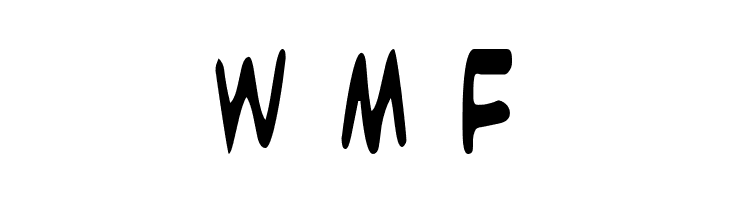
A bold, tribal-inspired font with a funky, graffiti-like style.
A bold, grungy font with a distressed, edgy design.
A lively, handwritten font with a playful and casual style.
A playful, bold font with a hand-drawn, whimsical style.
A playful, curly handwritten font with a whimsical flair.
A bold, dynamic font with rounded strokes and a playful slant.
A pixelated, grid-based font with a modern, digital aesthetic.
A bold, futuristic font with geometric shapes and star embellishments.
A condensed, modern font with tall, narrow letters and consistent stroke width.
A classic serif font with sharp serifs and moderate stroke contrast.
A playful, irregular font with a hand-drawn, artistic style.
A playful, bold, and irregular font with a hand-drawn, whimsical style.
A bold, italic font with sharp, angular edges and a dynamic, modern style.
A bold, italic font with sharp angles and a modern, dynamic style.
A bold, textured font with a gravel-like appearance, ideal for striking visual designs.
A playful, handwritten font with fluid, organic strokes and a casual feel.
A bold, graffiti-inspired font with dynamic, flowing strokes and an urban aesthetic.
A decorative font styled with interconnected chain links for a bold, industrial look.
A dramatic, oblique font with sharp, angular strokes and a mysterious elegance.
A rugged, distressed font with a bold, textured appearance.